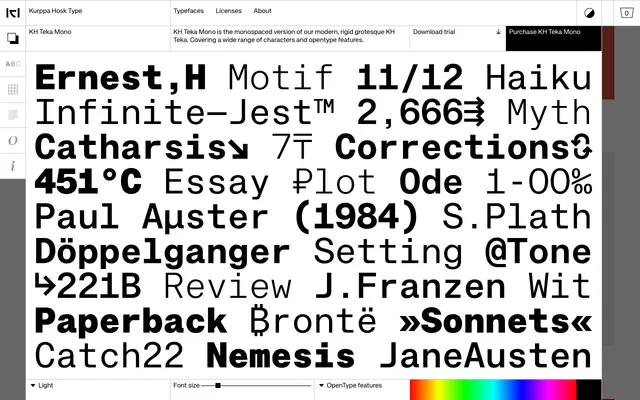
KH Teka Mono specimen from Kurppa Hosk Type
A monospaced companion to KH Teka, carrying the same rigid grotesque construction across 14 styles from Light to Black.
Derived from the grotesque KH Teka, this fixed-width family applies the same mechanical approach to curves and consistent metrics across seven weights, each with a matching italic. The character set is broad, covering extended Latin with a full set of punctuation, currency symbols, arrows and mathematical operators, alongside OpenType features including oldstyle figures, alternate letterforms and case-sensitive forms. Its even spacing and clean construction suit both interface and editorial contexts where a mono is needed without sacrificing typographic range.
A monospaced companion to the grotesque KH Teka, sharing its rigid, mechanical approach to curves and metrics. Classified as mono given its fixed-width construction, with grotesque as the underlying design language.